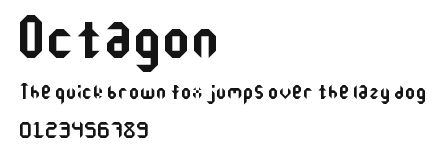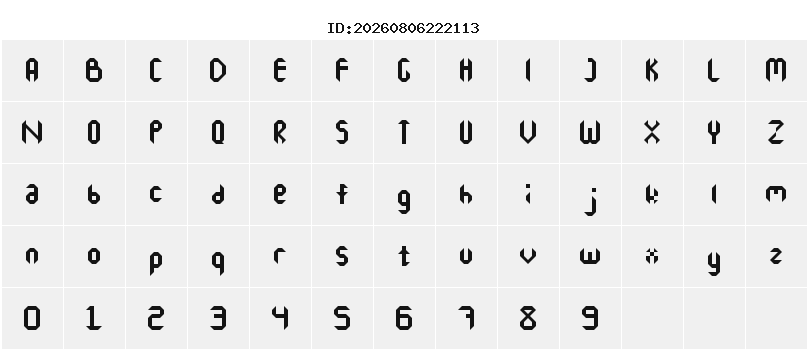
• Font Name: Octagon
• Full Font Name: Octagon Regular
• Designer: Maciboy9
• Description: ‚ÄúOctagon‚Äù was built with FontStruct
About Octagon.ttf
Octagon.ttf is a modern, elegant sans-serif font designed for ultimate readability and visual harmony. Perfect for branding, headlines, web design, and print materials.